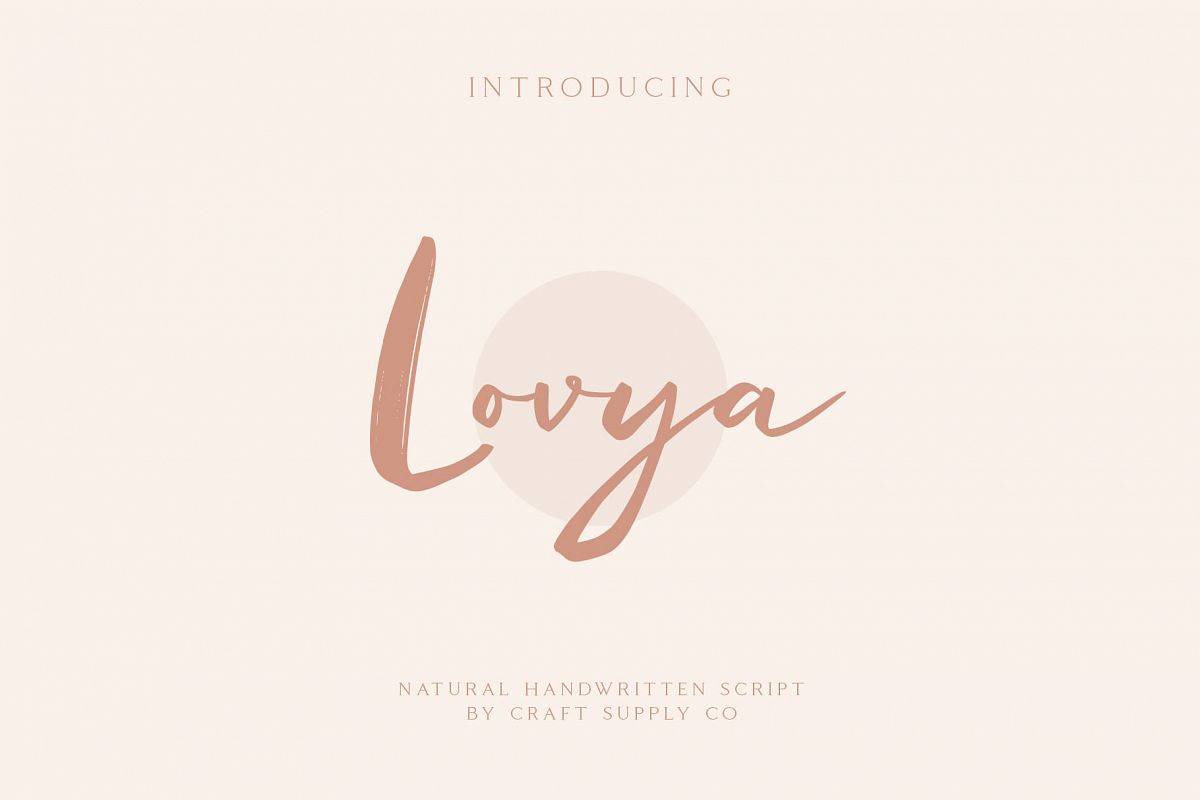
Lovya - Natural Handwritten Script
Introducing New Font : Lovya - Natural Handwritten Script
Lovya - Natural Handwritten Script is an handwritten script font based on the expression of real handwriting. Lovya - Natural Handwritten Script will work perfectly for fashion, e-commerce brands, trend blogs, wedding boutiques or any business that wants to appear upscale and chic.
Lovya - Natural Handwritten Script also Suitable for Logo, greeting cards, quotes, posters, branding, name card, stationary, design title, blog header, art quote, typography, art, modern envelope lettering or book design, craft design, any DIY project, book title, or any purpose to make your art/design project look pretty and trendy.
1. Uppercase & Lowercase
2. Special Ligatures (ov ow oi oj om on oo op ou aa ai aj am an ar as at er es et ee ir is it ll or os rr ss ot ur us ut tt st)
3. Numerals & Punctuations (OpenType Standard)
4. Accents/Multilingual characters (AÀÁÂÃÄÅCÇDÐEÈÉÊËIÌÍÎÏNÑOØÒÓÔÕÖUÙÜÚÛWYÝŸỲŸÆŒßÞ)